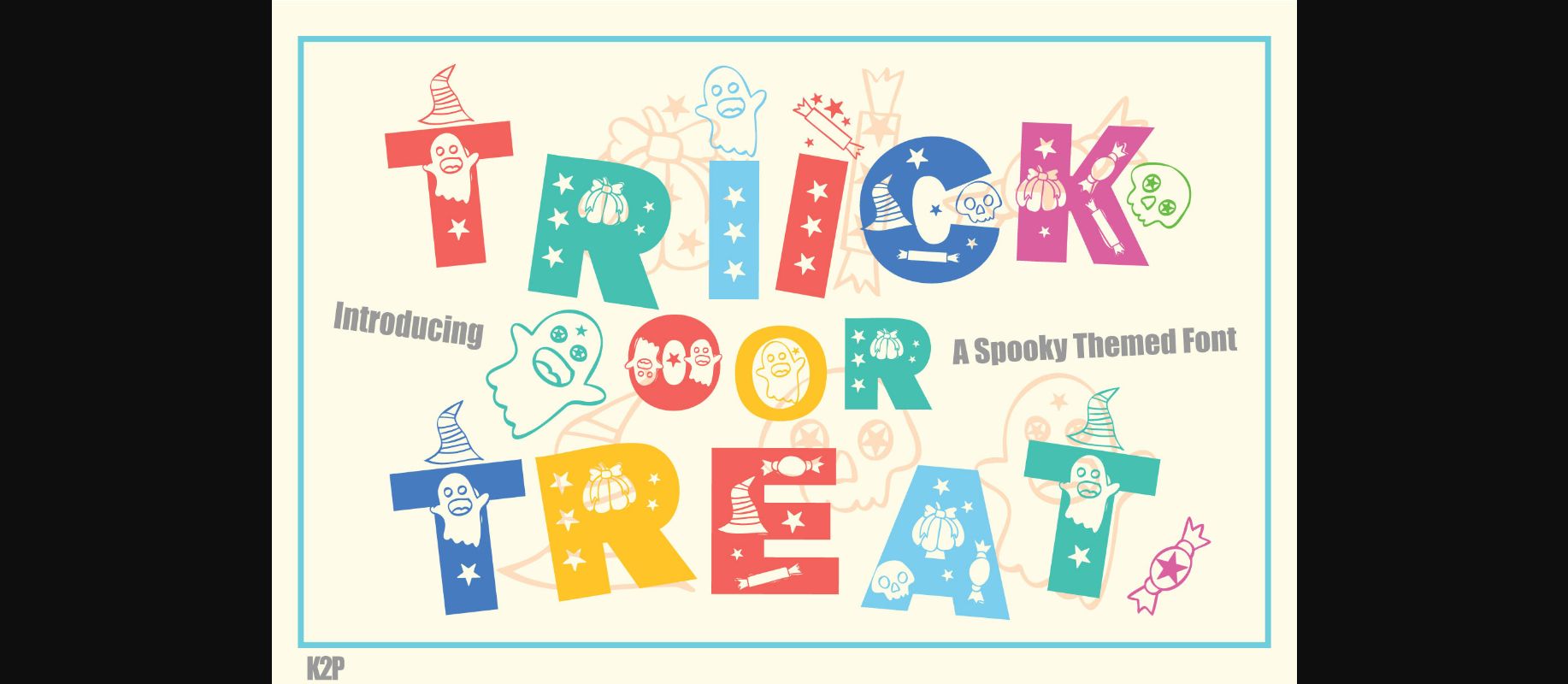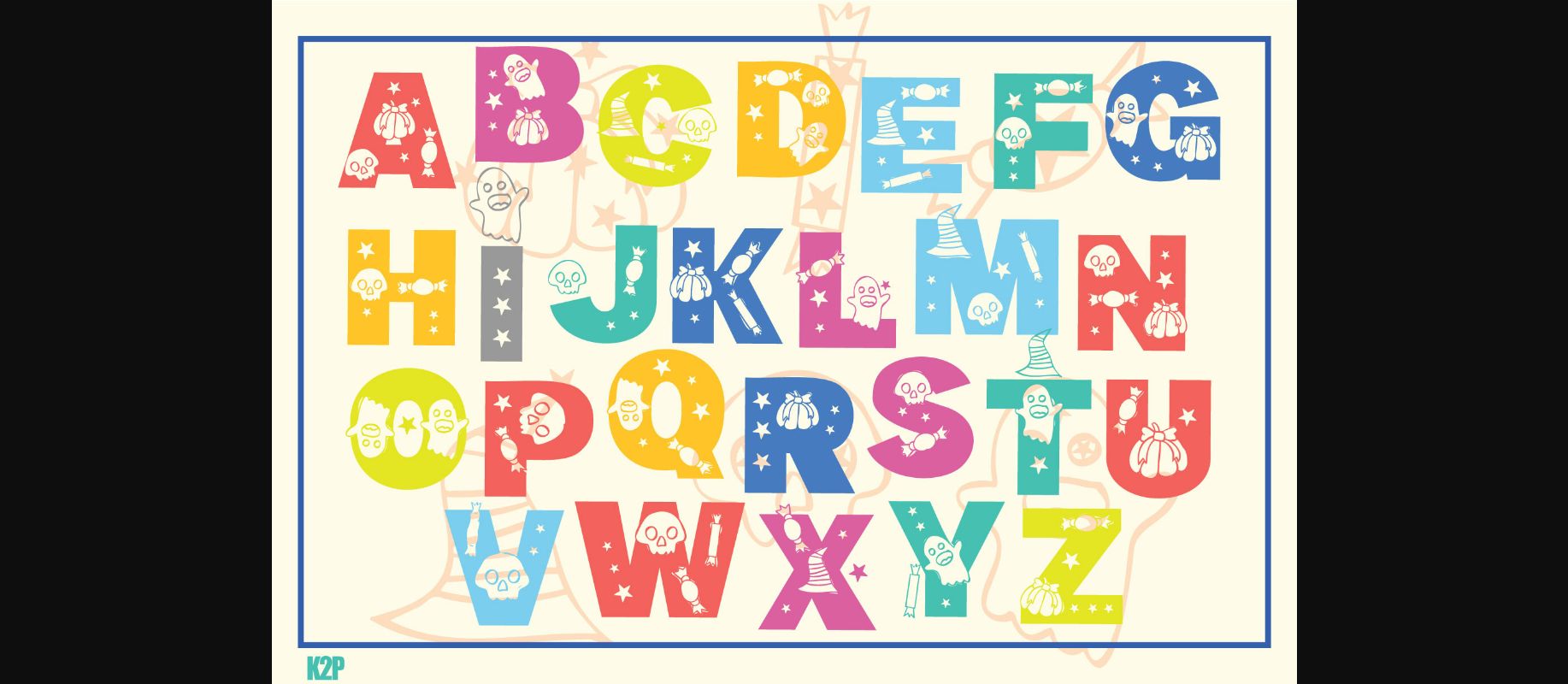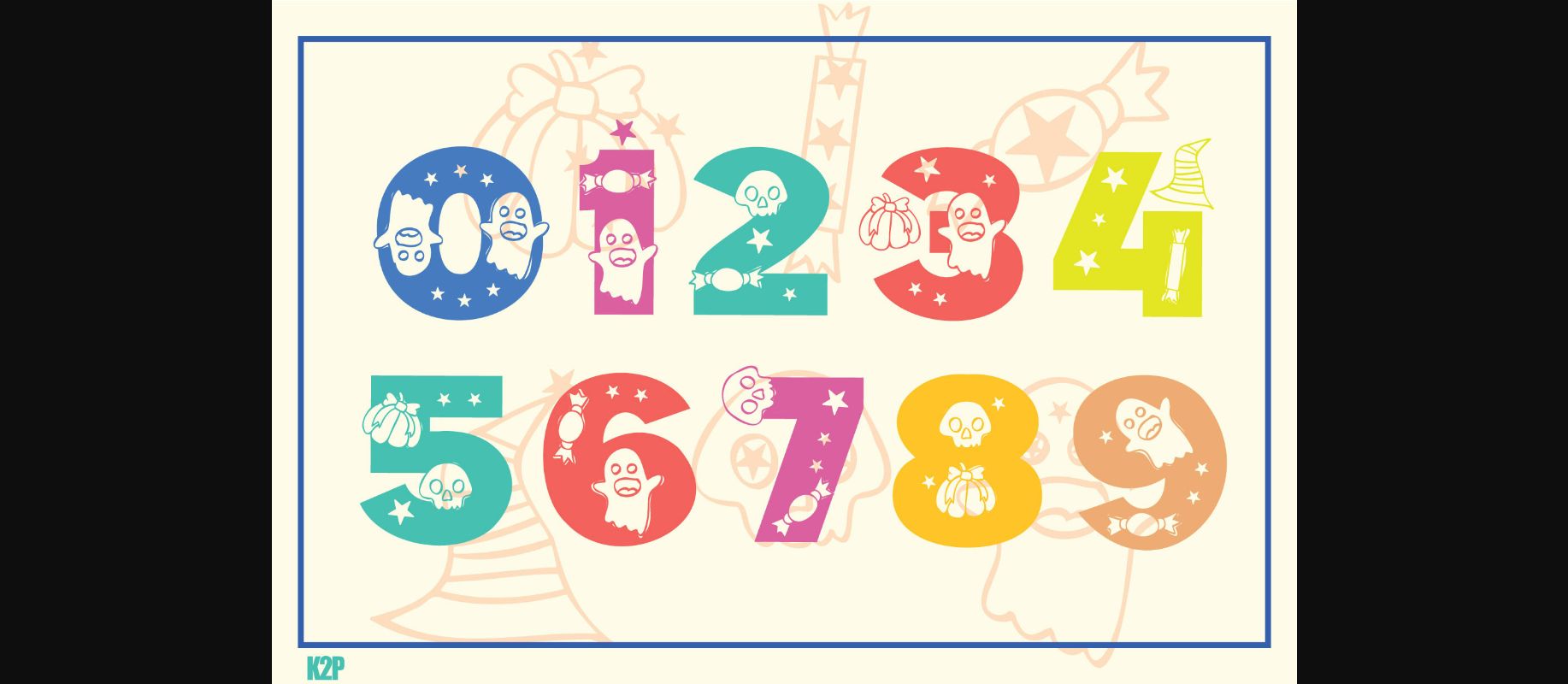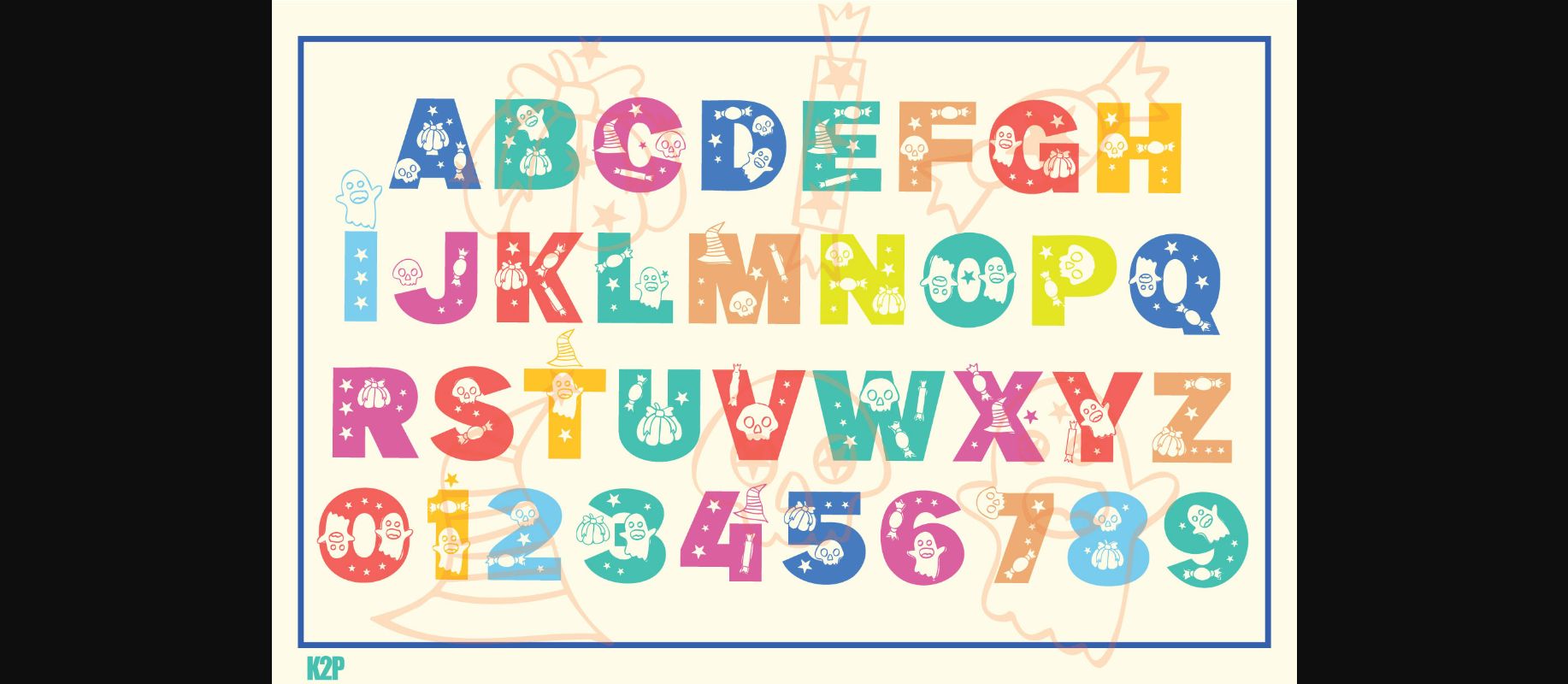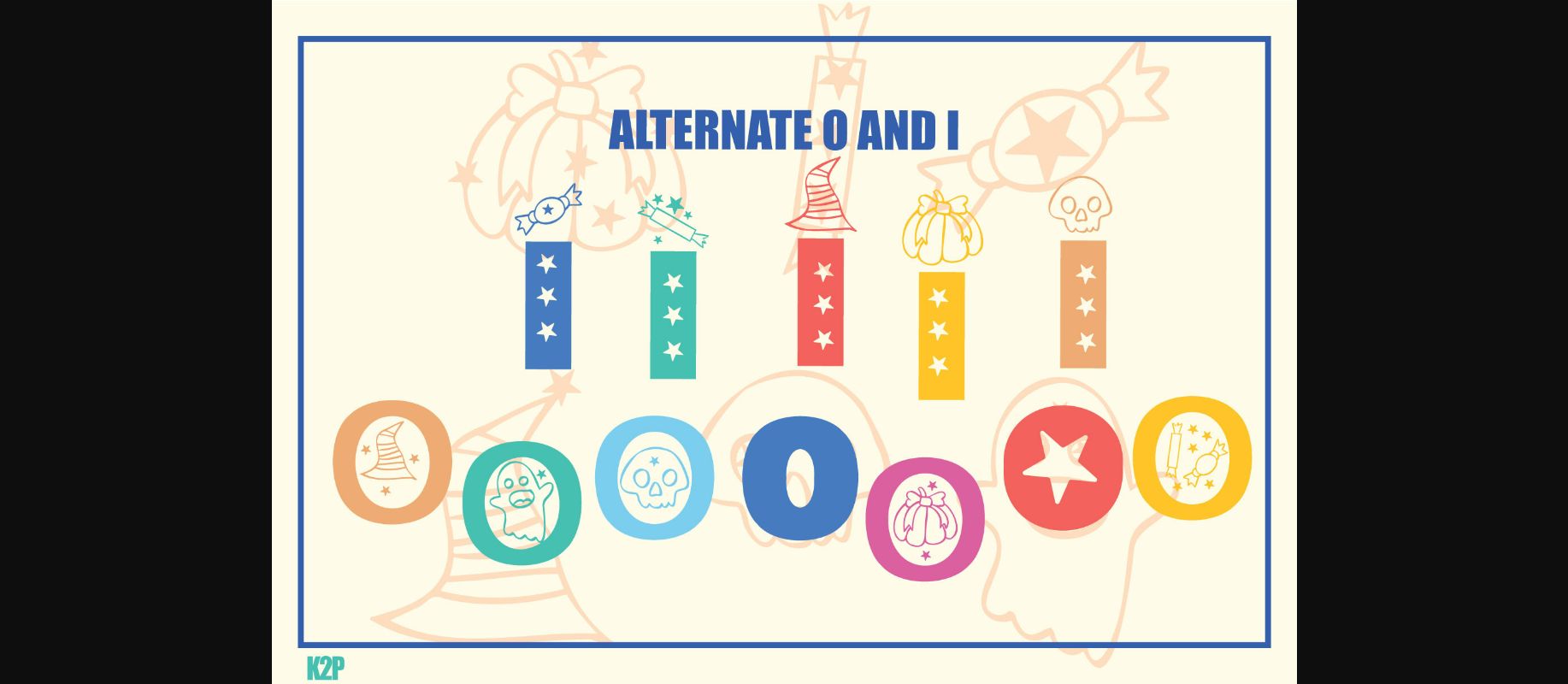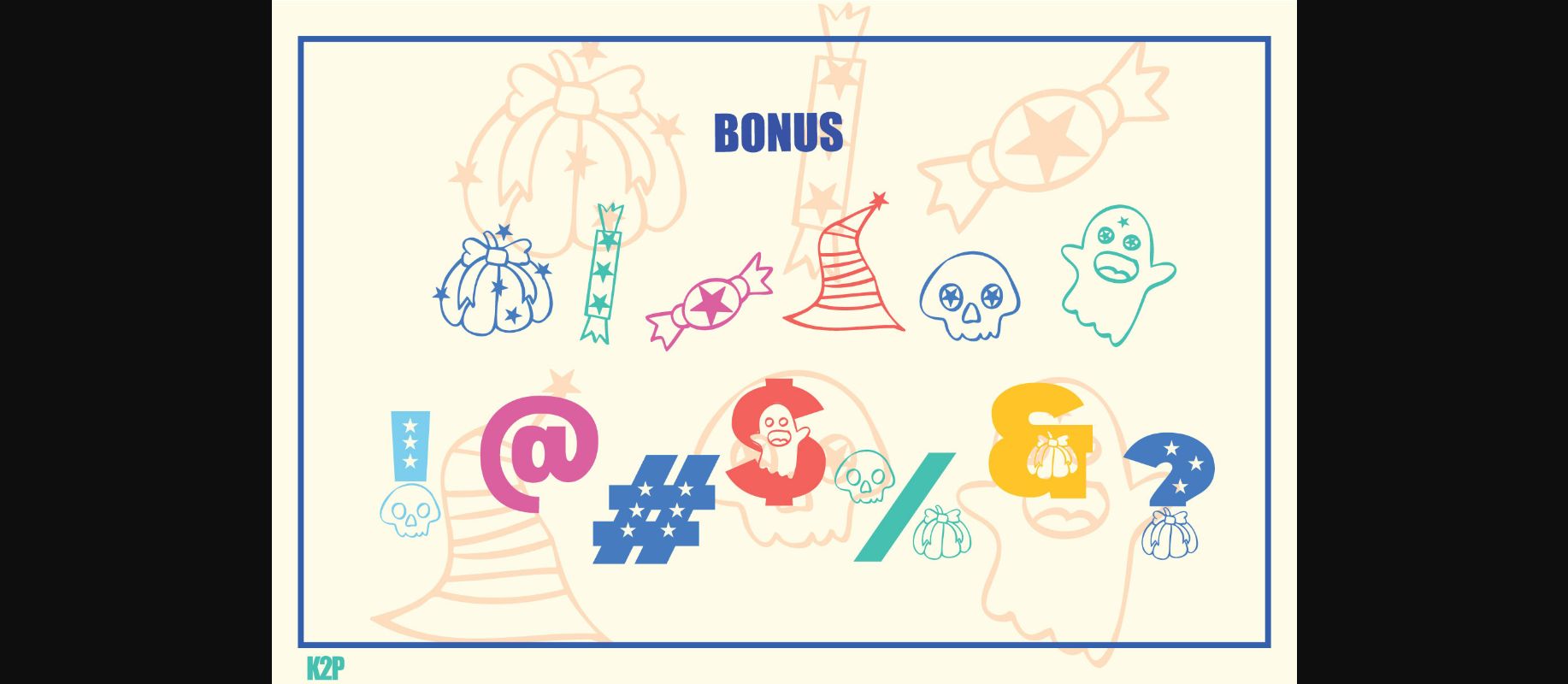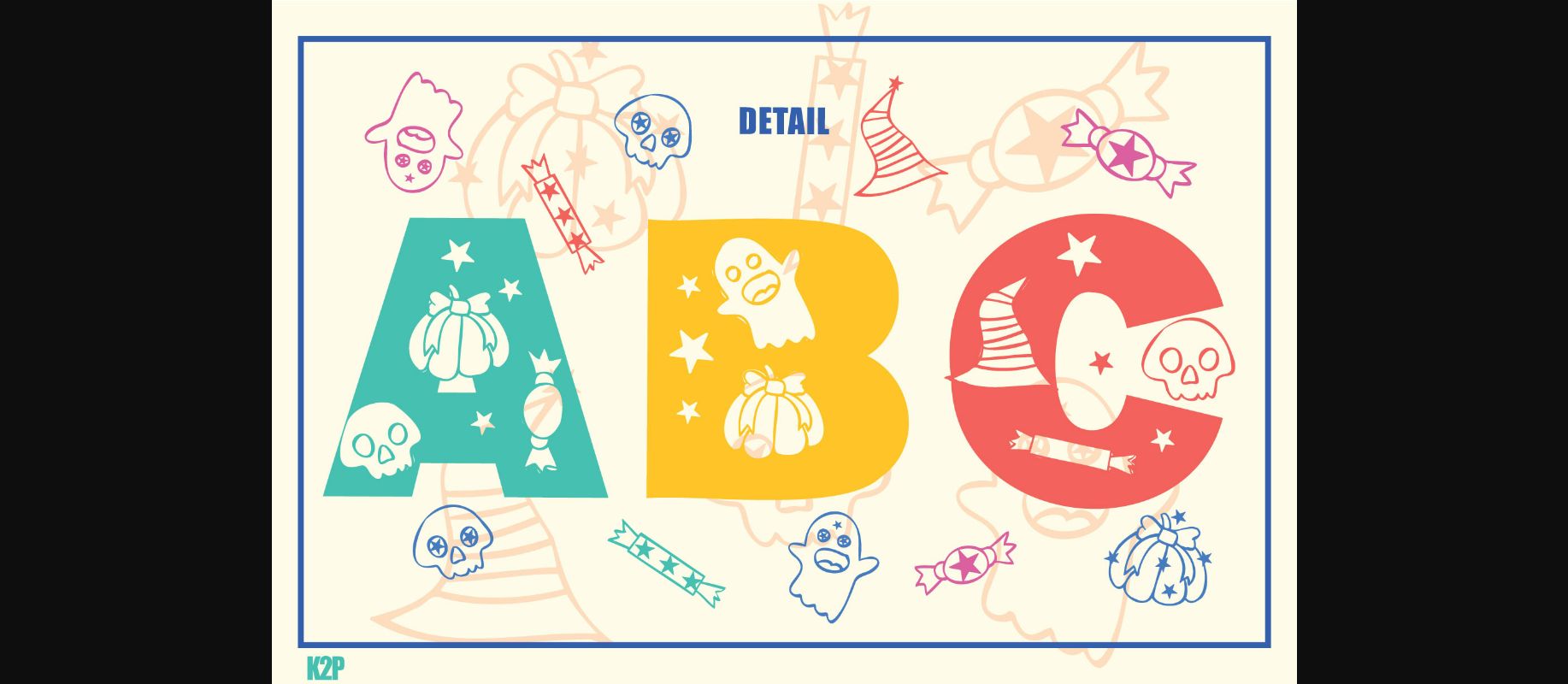
HomeDecorative FontsTrick or Treat Font Decorative Fonts Trick or Treat Font FacebookXPinterestWhatsApp 1 of 9 ... Trick or Treat Font Poster 2... Trick or Treat Font Poster 3... Trick or Treat Font Poster 4... Trick or Treat Font Poster 5... Trick or Treat Font Poster 6... Trick or Treat Font Poster 7... Trick or Treat Font Poster 8... Trick or Treat Font Poster 9... About Trick or Treat Font Trick or treat is a spooky and playful decorative font, perfectly suitable for any Halloween-related project or crafty idea! DOWNLOAD NOW People also explored Kharisma Font Jollie Font Ophalaria Font Goola Kids Font Sansational Mimenagel Font Manners Font Scarlett Font Touseled Script Font 289 0 TagsTrick or Treat Font Previous articleSuzanstein FontNext articleFreezer Font LEAVE A REPLY Cancel reply Comment: Please enter your comment! Name:* Please enter your name here Email:* You have entered an incorrect email address! Please enter your email address here Website: Save my name, email, and website in this browser for the next time I comment. Personal Use Free Lovetle Personal Use Free Read more about this font BD Medled Personal Use Free Read more about this font Bettari Personal Use Free Read more about this font Susanna Personal Use Free Read more about this font BLOG The 10 Best Handwriting Fonts to Add Personality to Your Designs 10 of the Best Handwriting Fonts for Adding Personality to Your Designs There will undoubtedly be no other better choice than handwriting fonts to give... Fonts That Capture the Spirit of New York City Top 10 Handwritten Fonts That Elevate Your Designs Best Fonts for T-Shirt Design – Top 2025 Picks